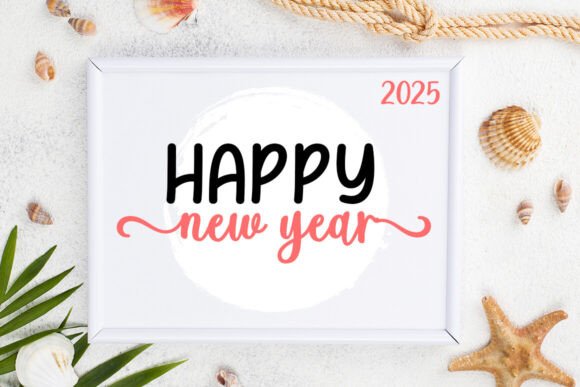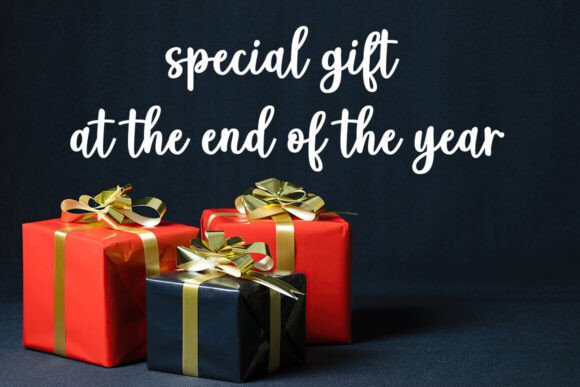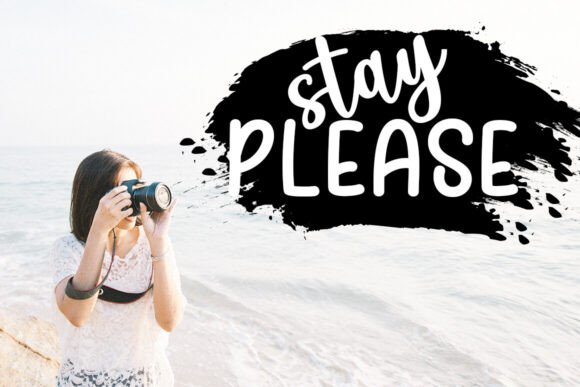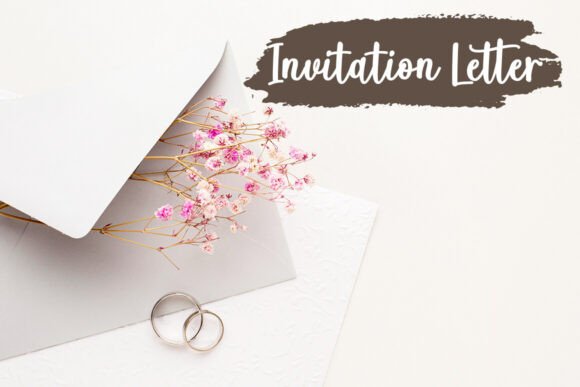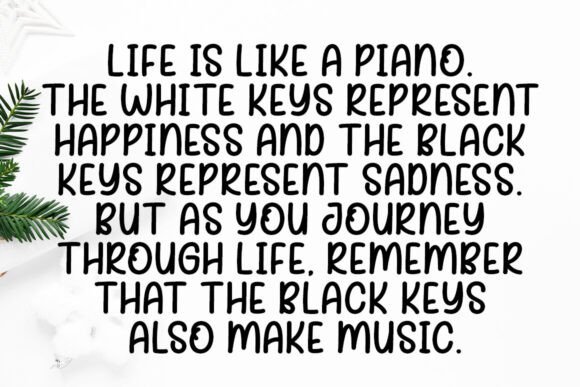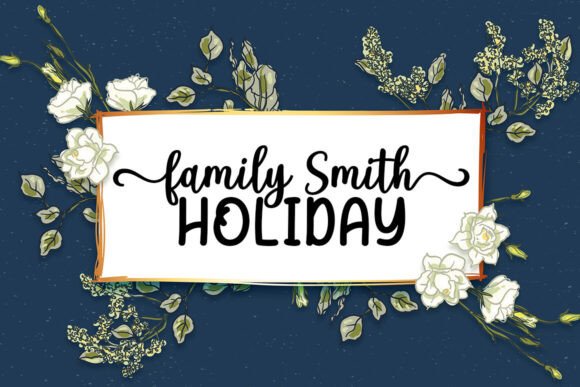
Bring Your Designs to Life with the California Handwriting Duo Font
There’s something magical about watching a design concept transform into a stunning reality. For me, it’s the moment when all the elements come together, and the words seem to dance off the page. It’s a feeling that’s hard to put into words, but it’s exactly what you get when you use the California Handwriting Duo Font. This modern, stylish, and flowing handwritten font duo is a game-changer for designers looking to add a touch of elegance and sophistication to their work.
As a font duo, California Handwriting features a beautiful script and display combination that’s perfect for creating eye-catching logos, branding, and quotes. Its well-balanced characters make it a versatile choice that can elevate a wide range of designs, from minimalist to bold and playful. And with its PUA encoding, you can access all the amazing glyphs and ligatures with ease, taking your designs to the next level.
California Handwriting Duo Font Features
- Unique Characteristics: The California Handwriting Duo Font is a handwritten font that comes in two styles, Regular and Script, allowing users to choose between a more casual, handwritten look and a more elegant, cursive style.
- Size: The font includes a wide range of characters, including uppercase and lowercase letters, numbers, and punctuation, making it suitable for various design applications.
- Resolution: The font is designed for high-resolution displays, ensuring crisp and clear text at various sizes and resolutions.
- Language Support: The font supports a wide range of languages, including English, Spanish, French, German, Italian, and many others, making it a versatile choice for designers and writers.
- Font Size Range: The font is designed to work well in a variety of font sizes, from small captions to large headlines, allowing users to create visually appealing designs.
California Handwriting Duo Font Review
I recently had the chance to work with the California Handwriting Duo Font, and I must say it’s a unique addition to any designer’s toolkit. ✨ One of the things that stands out about this font is its versatility. It comes in two distinct styles, each with its own character and charm.
- Both styles are beautifully crafted to mimic handwritten script, perfect for creating a personal and friendly tone in your designs.
- The font’s wide range of applications, from logos to greeting cards, makes it a great choice for designers looking for a consistent look across multiple projects.
- Its unique and stylish feel will undoubtedly add a touch of sophistication to any design.
However, I do have some concerns about the font’s limitations. ⚠️ One of the main issues is its relatively small character set, which may not be ideal for longer texts or formal documents.
Overall, I think the California Handwriting Duo Font is a great addition to any designer’s collection, especially for those who work on creative and personal projects. While it may have its limitations, its unique charm and versatility make it a worthwhile investment for any design enthusiast.
California Handwriting Duo Font: A Practical Application Guide
The California Handwriting Duo Font is perfect for:
- Personalized gift tags and cards
- Journaling and scrapbooking
To get the most out of the California Handwriting Duo Font, try the following:
- Combine the font with other design elements,
Alternatives to California Handwriting Duo Font
Great Vibes is a beautiful, elegant script font perfect for creating a romantic and vintage atmosphere. It’s ideal for wedding invitations, greeting cards, and other personal projects.
Compared to California Handwriting Duo Font, Great Vibes has a more refined and sophisticated feel, with cleaner lines and a more consistent flow. It’s a great choice for designers who want to create a sense of luxury and sophistication.
Ostrich Sans is a modern, sans-serif font with a unique, handwritten feel. It’s perfect for creating a bold and playful atmosphere, and is ideal for logos, branding, and marketing materials.
Can I customize the California Handwriting Duo Font to fit my specific design needs?
Yes, the California Handwriting Duo Font is designed to be highly customizable. With the included OpenType features, you can access a range of advanced typographic options, such as ligatures, swashes, and stylistic sets. Additionally, the font’s variable font technology allows for easy adjustment of font weight, width, and other parameters to create unique and tailored designs.